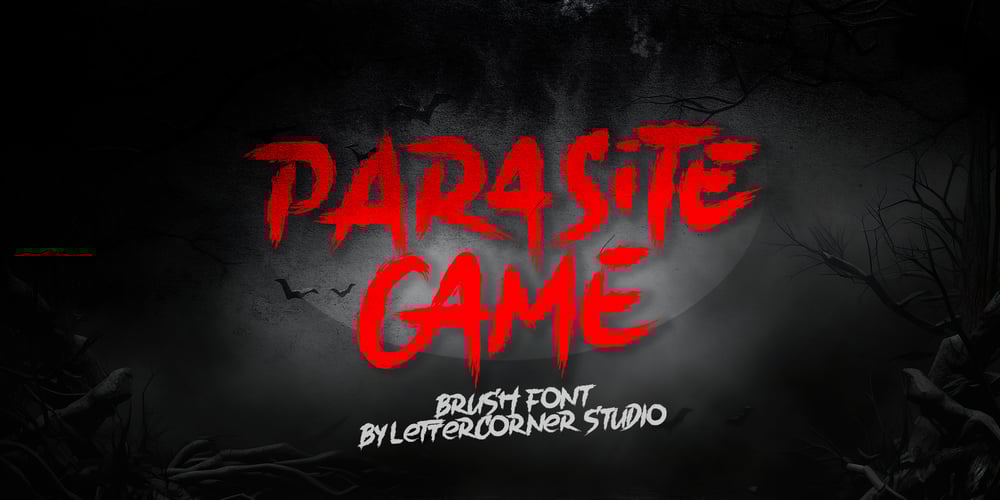
Parasite Game
Parasite Game font
Parasite Game Font Family was designed by Muhammad Afif Ersya and published by Mevstory Studio. Parasite Game contains 1 styles and family package options. Introducing Parasite Game, is a Horror Font Display has many purpose and suitable for horror, movie, movie poster, modern, halloween, advertising and much more.